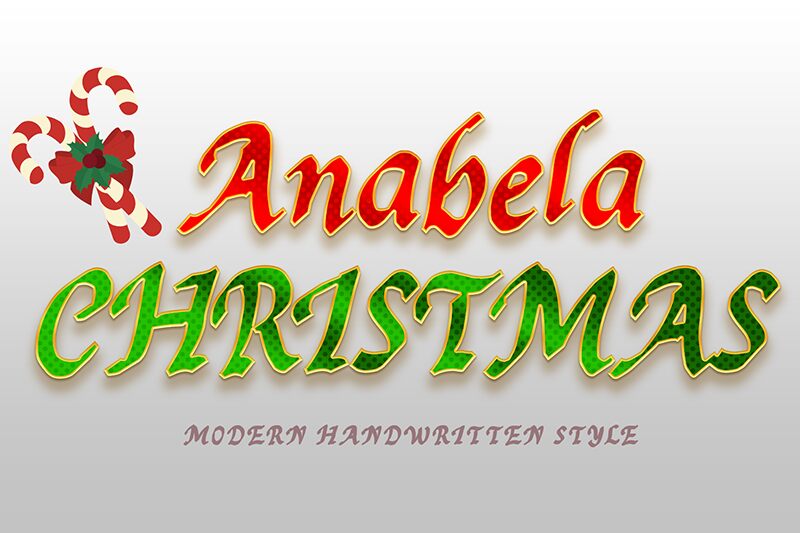
This modern script font is perfect for Christmas projects, and it also works great with any other thematic/season-based projects. You can add it to any book cover (Christmas, Valentine, Halloween or even regular novels).
You can use it for advertisements, flyers, menus and posters, or you can add it to your logo, business cards, labels or greeting cards. So what are you waiting for?